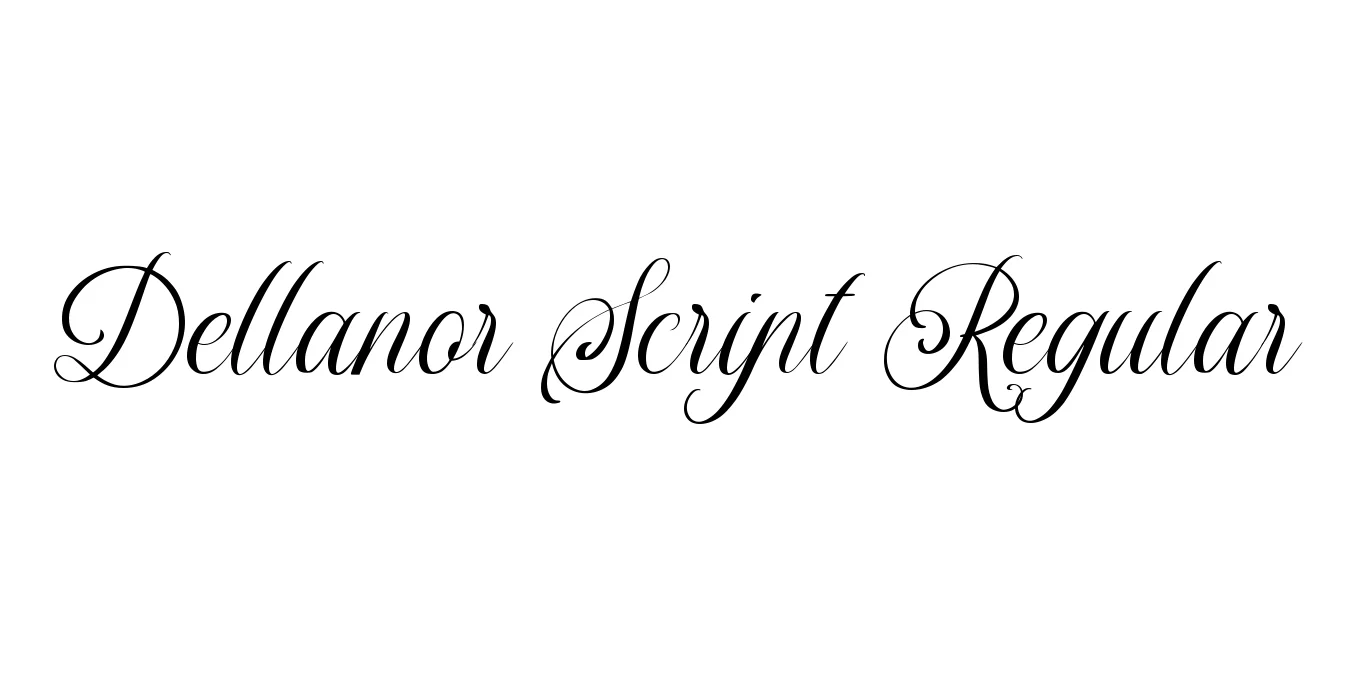
Dellanor Script Regular
Dellanor Script Regular is a sophisticated calligraphic font designed by Alit Design, known for its fluid strokes and artistic temperament. This typeface captures the essence of modern handwriting with a refined touch, making it a favorite among designers seeking to convey elegance and personality. The letterforms feature a rhythmic balance between thick and thin strokes, meticulously crafted to ensure that each character flows seamlessly into the next.
In addition to its standard characters, Dellanor Script often includes a variety of OpenType features such as stylistic alternates and decorative swashes. These elements allow for a high degree of customization, enabling designers to create unique logotypes and headlines that stand out. Its versatility has led to its widespread adoption in high-end retail packaging, wedding stationery, and editorial designs where a touch of bespoke craftsmanship is required.
Dellanor Script Regular Best Uses
Perfect for creating romantic and high-end wedding suites and RSVP cards.
Excellent for luxury logos, perfume packaging, and boutique fashion labels.
Ideal for creating elegant quotes, aesthetic Instagram stories, and Pinterest graphics.
Works beautifully for magazine mastheads and romantic book covers.